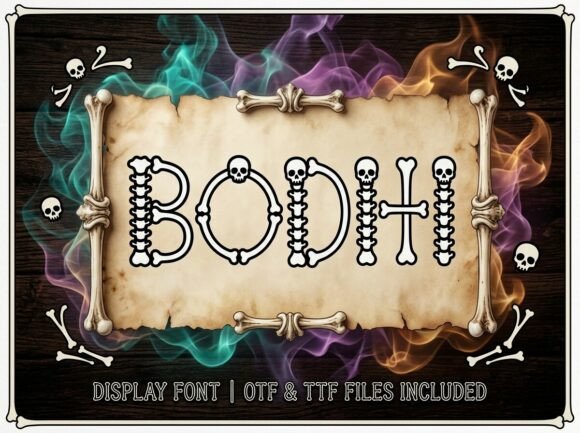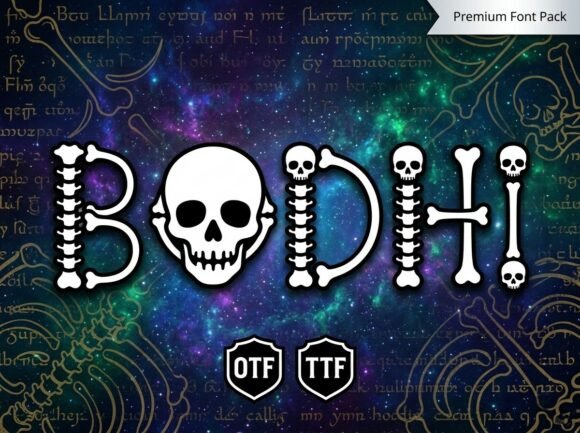
Introducing Bodhi Font: A Stunning Decorative Display Font
Are you tired of using the same old fonts for your designs? Look no further than Bodhi Font, a unique and artistic display font that’s sure to turn heads. Designed to be the center of attention, Bodhi Font features a strong visual personality and artistic elements that will elevate your designs to the next level.
What Makes Bodhi Font Special?
Bodhi Font is a versatile decorative display font that’s perfect for creators who want to break away from the ordinary. Its unique design makes it ideal for bold headlines, artistic logos, and creative packaging, while maintaining a professional and polished finish. Whether you’re a designer, crafty DIY enthusiast, or entrepreneur, Bodhi Font is the perfect addition to your font collection.
Key Features of Bodhi Font
• Unique Artistic Elements: Bodhi Font features intricate and artistic elements that give it a distinctive look and feel.
• Strong Visual Personality: This font has a bold and confident personality that’s sure to make a statement.
• Versatile: Bodhi Font is perfect for a variety of design projects, from bold headlines and artistic logos to creative packaging.
• Professional and Polished: Despite its bold and artistic design, Bodhi Font maintains a professional and polished finish.
⚠️ IMPORTANT NOTE BEFORE PURCHASE: Bodhi Font is an ALL-CAPS (Uppercase Only) display typeface. It does not include lowercase letters. It is specifically designed for high-impact headlines, logos, and decorative initials where every letter is a work of art.
Why Choose Bodhi Font?
There are many reasons why Bodhi Font is a great choice for designers and crafters. Here are just a few:
• Add a Touch of Elegance: Bodhi Font adds a touch of elegance and sophistication to any design project.
• Stand Out from the Crowd: With its unique and artistic design, Bodhi Font is sure to make your designs stand out from the crowd.
• Perfect for Branding: Bodhi Font is perfect for branding projects, including logos, packaging, and marketing materials.
• Easily Readable: Despite its bold and artistic design, Bodhi Font is easily readable, making it perfect for headlines and titles.
• Use it for Headlines: Bodhi Font is perfect for headlines and titles, adding a touch of elegance and sophistication to any design project.
• Create Artistic Logos: With its unique and artistic design, Bodhi Font is perfect for creating artistic logos and branding materials.
• Add a Personal Touch: Bodhi Font can be used to add a personal touch to any design project, from DIY crafts to professional designs.
Bodhi Font is a stunning decorative display font that’s perfect for designers and crafters who want to add a touch of elegance and sophistication to their design projects. With its unique artistic elements, strong visual personality, and versatility, Bodhi Font is sure to become a favorite in your font collection. So why wait? Purchase Bodhi Font today and take your designs to the next level!